Lektorat rebrands BICE
Lektorat is the singular voice rebranding Argentina’s state-owned development bank, Banco Argentino de Desarrollo (BICE).
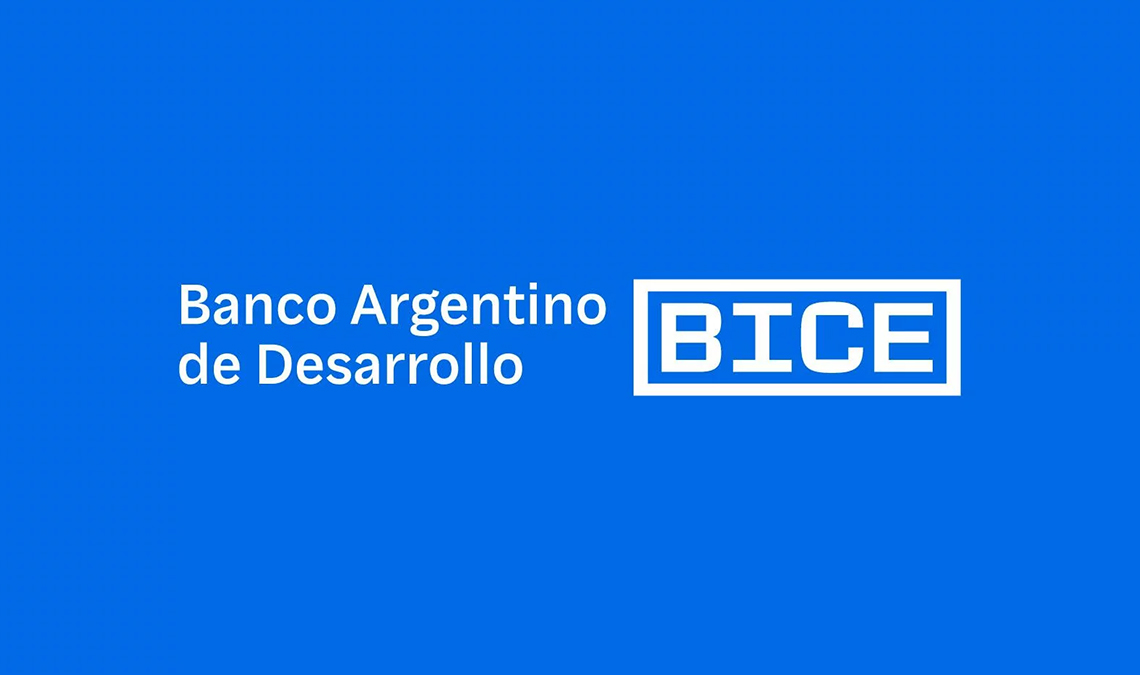
For BICE’s recent rebranding, the Buenos Aires-based FontanaDiseño chose Florian Fecher’s Lektorat type family, and we think the results are enough to grab anyone’s attention.
The rebranding accounted for conventions that go beyond administrative cataloguing, starting from an historical analysis of the organisation’s culture. FontanaDiseño then used this analysis to create a new image that aligned with the guidelines and social context. The new branding included the redefinition of the institution’s name and the creation of a visual image that made its typographic voice its core asset.
“In this context, regarding the choice of the font family, our search was based on a specific need: a typographic resource with a certain stylistic neutrality, not too trendy but clearly contemporary, and with a lot of flexibility”, FontanaDiseño said in a statement. “Some variable families from different foundries were tested (in these cases, we always analyse performance, characteristics of the small caps, formality of the numbers, non-alphabetic characters, etc.), and the one that was most competitive according to the brief was Lektorat.”
Seeing as Lektorat is able to handle neutrality, modernity, and a distinct voice across all media formats, BICE chose the family as the defining brand feature. Both the display and the text styles are used cohesively across billboards and environmental design, their website and social media, advertisements and presentations, and all internal and external interactions, whether in digital or tangible assets.
Florian Fecher’s Lektorat is the sans family capable of setting a full range of editorial publishing. Its six concentrated text styles speak directly to readers, and its three display widths equal 42 additional styles capable of informing, persuading, and entertaining en masse.